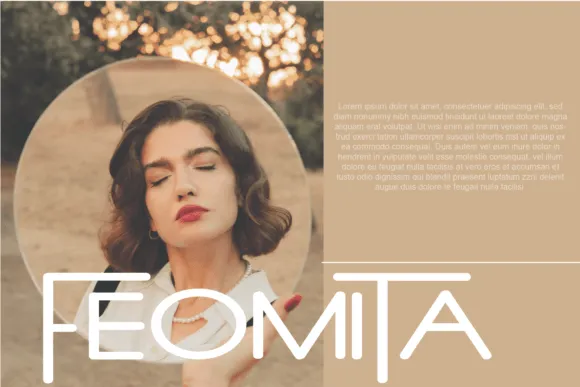
Elegant Font
Elegant Font is an extremely alluring and unmistakable typeface, intended to accomplish a lavish viewpoint. Elegant Font very well may be utilized brilliantly for bundling plans, style topics, scent plans, corrective plans, social posts, and so on. Use it with trust in your manifestations, and you will see astonishing outcomes.